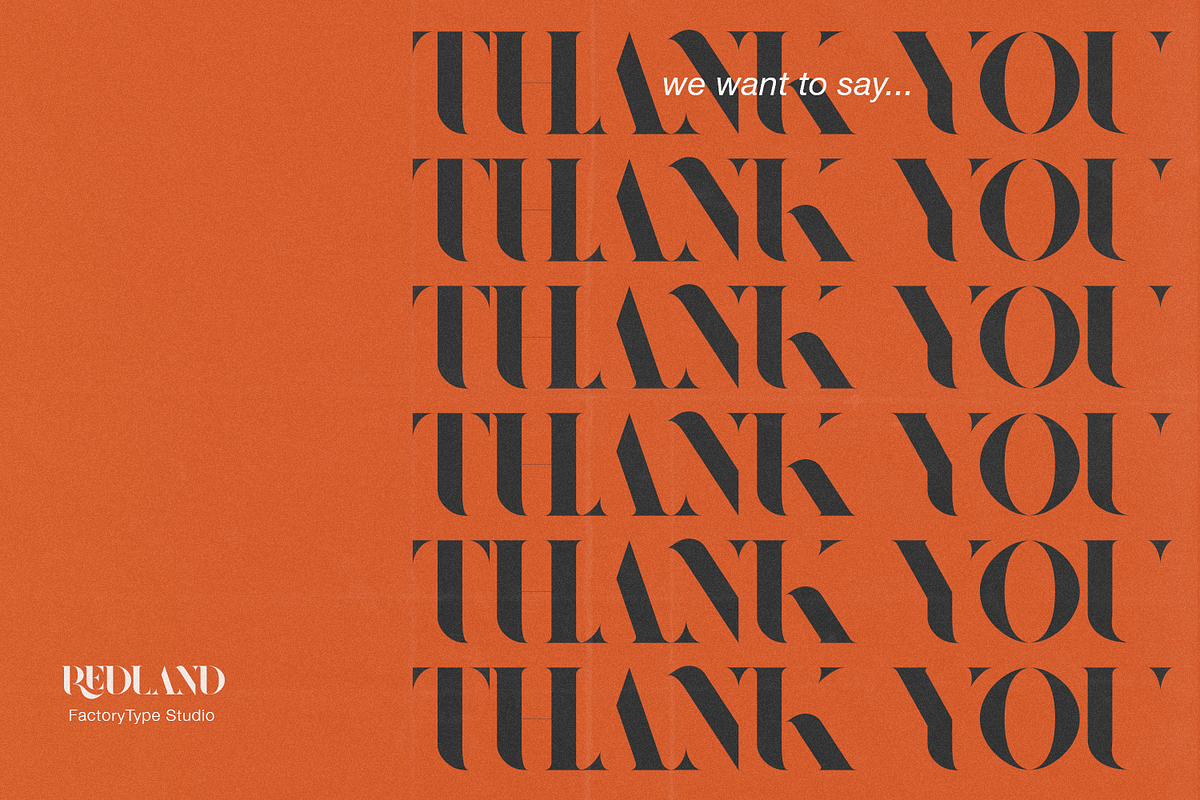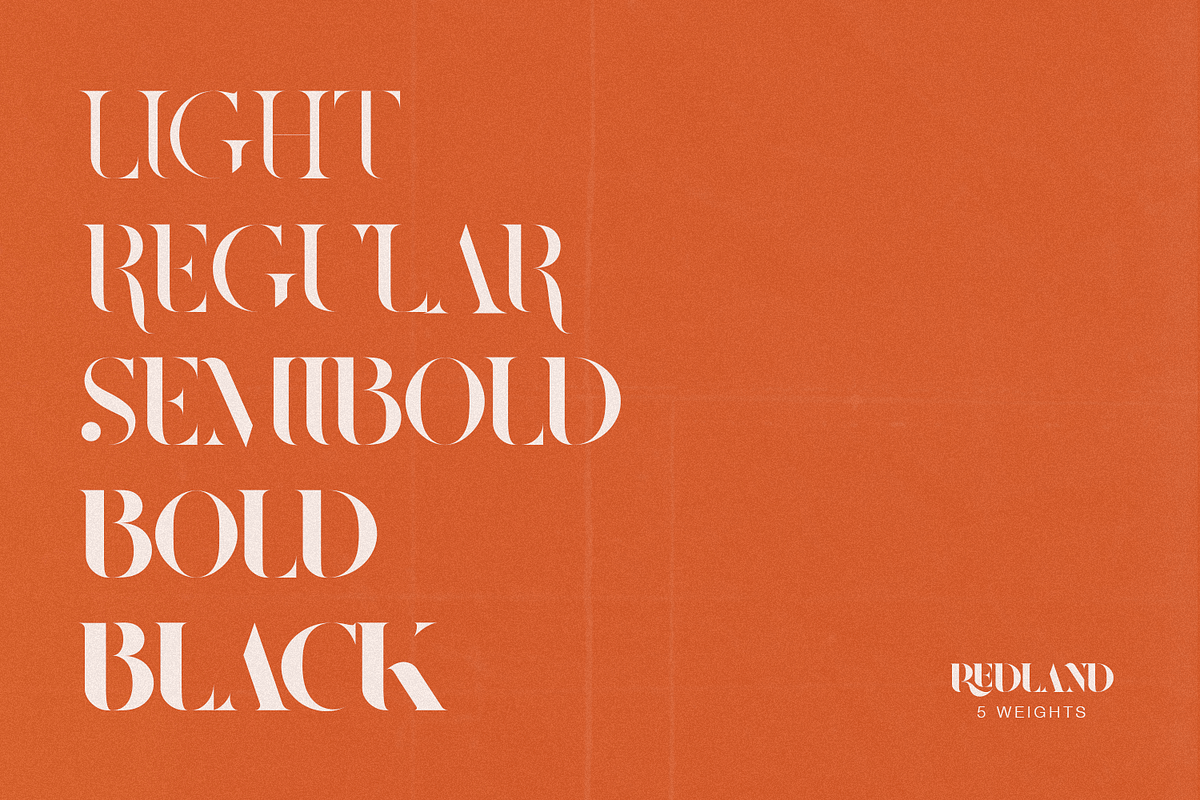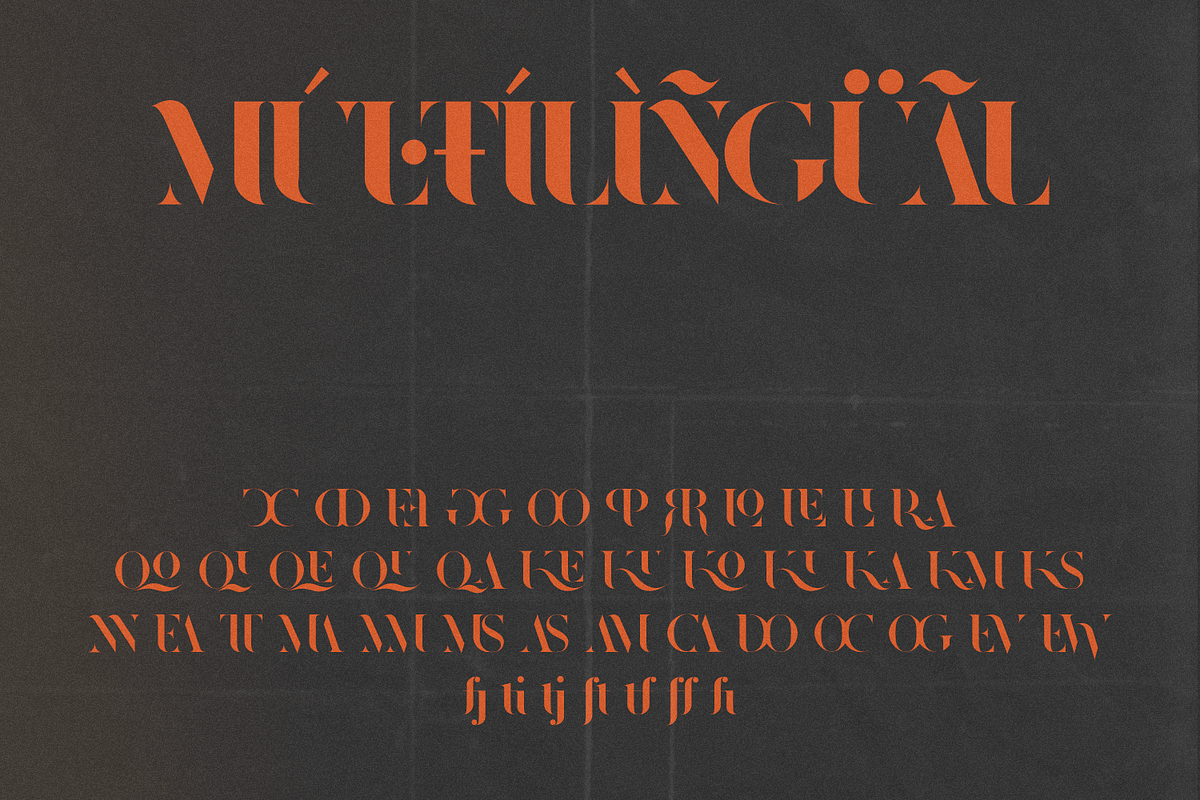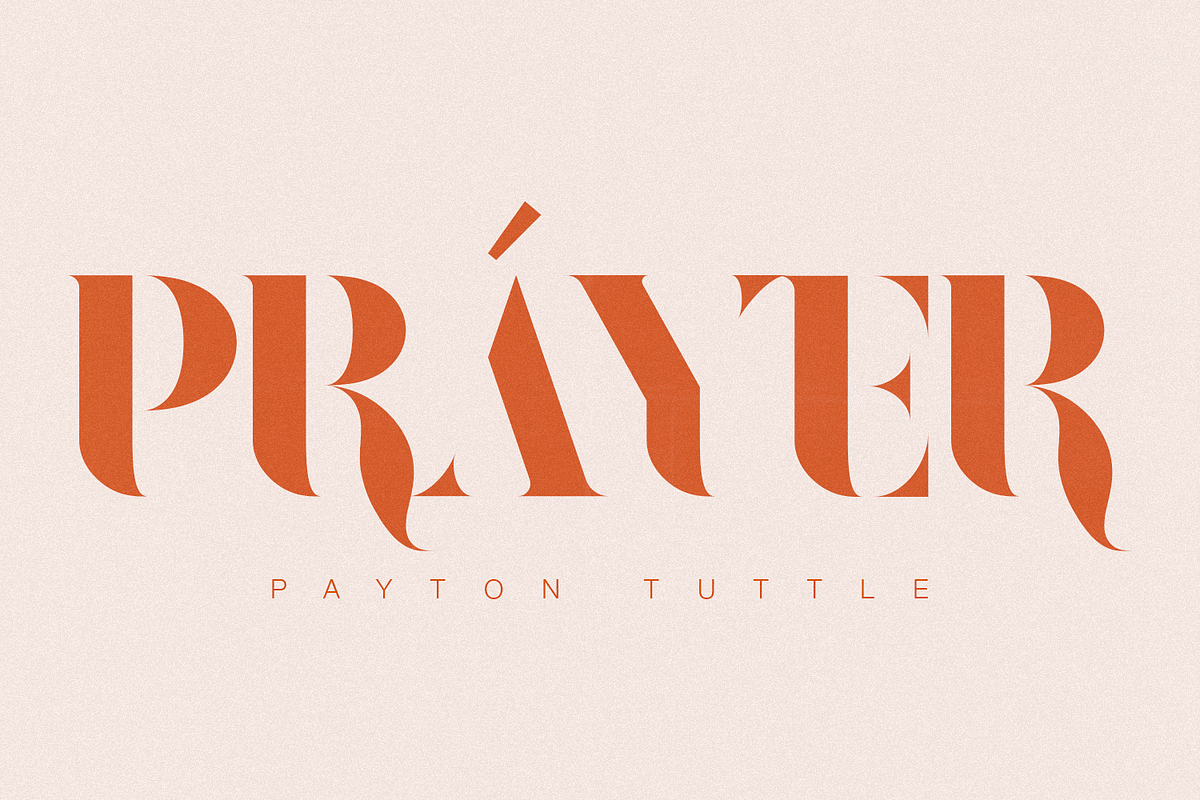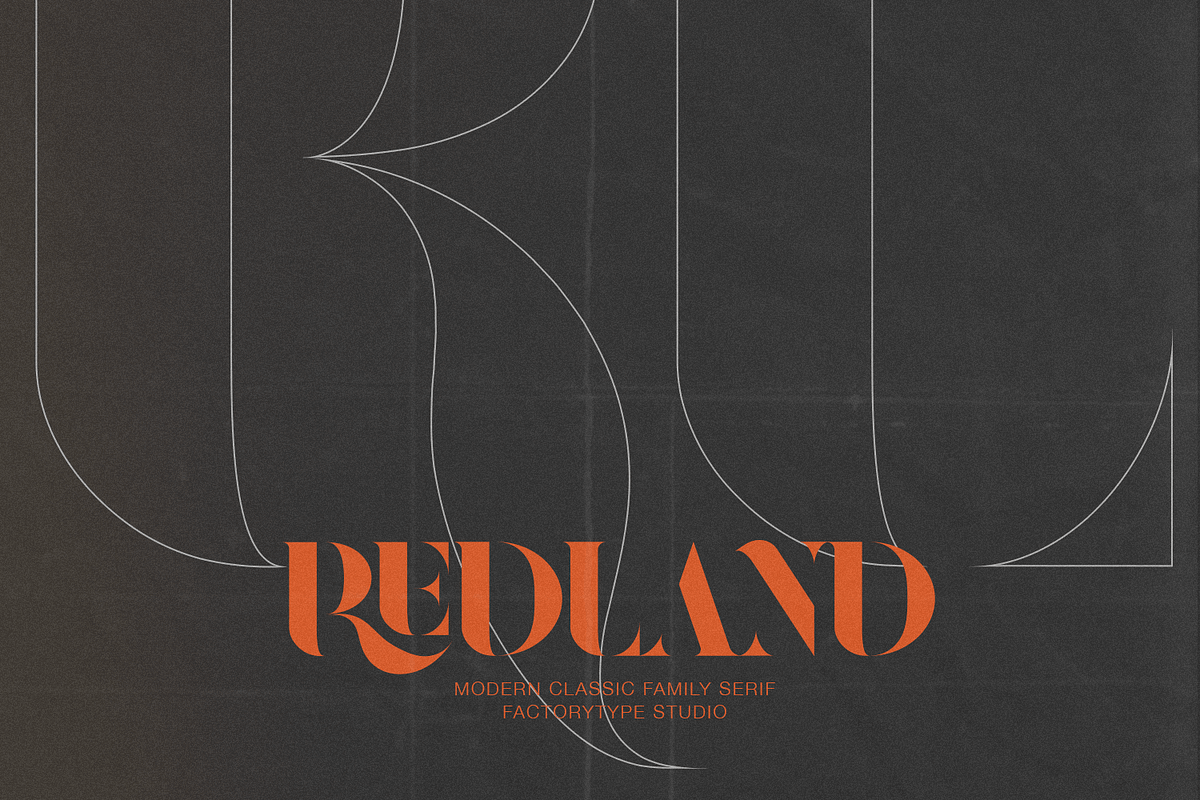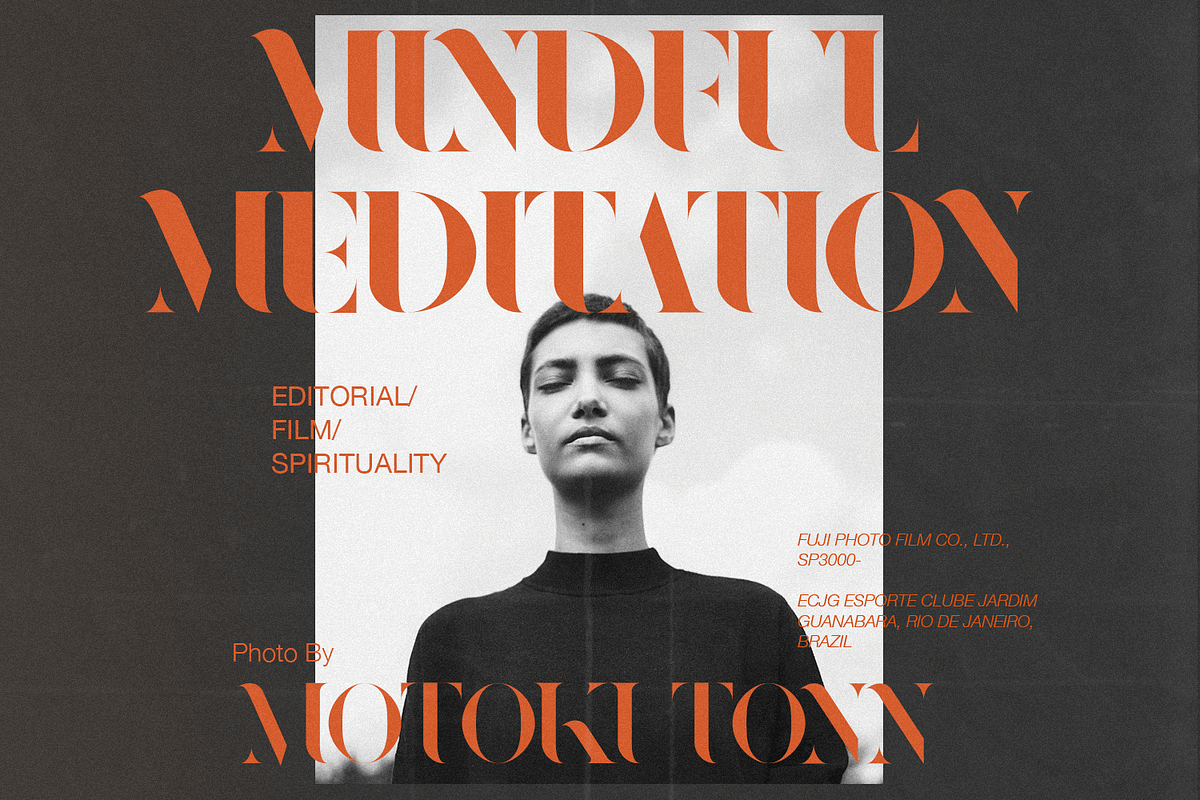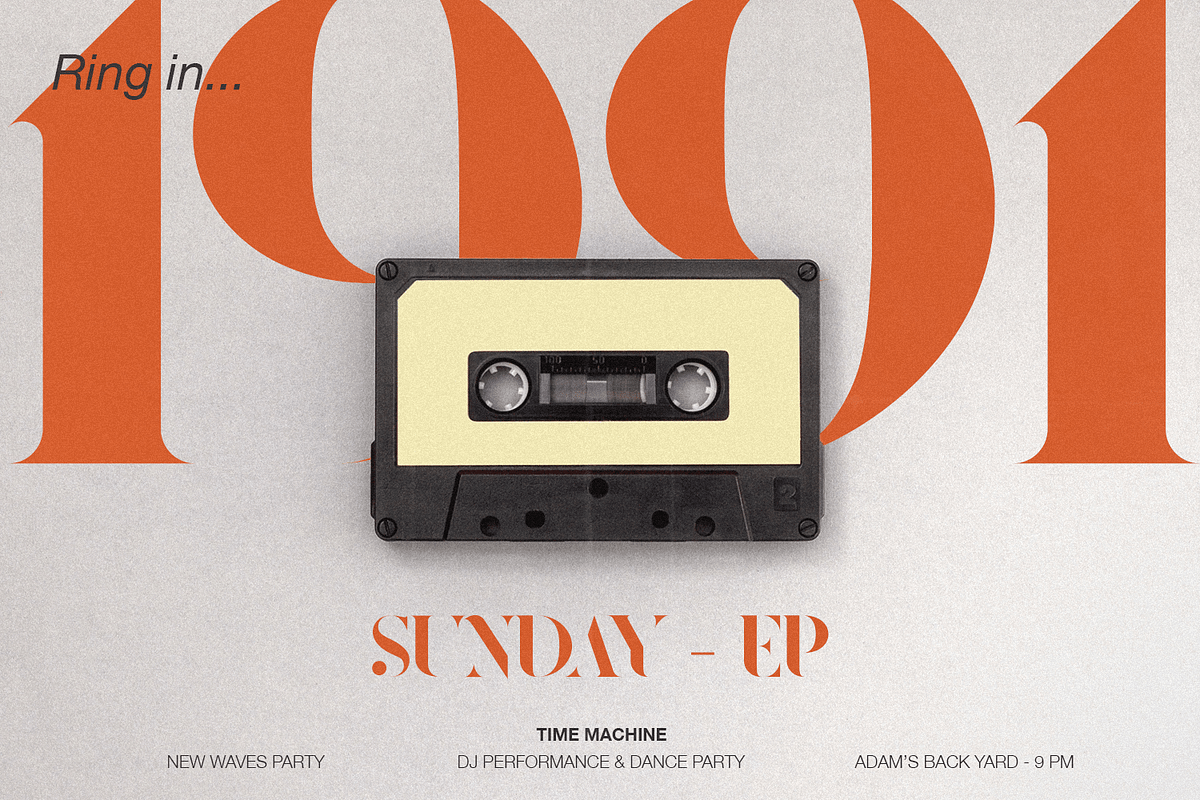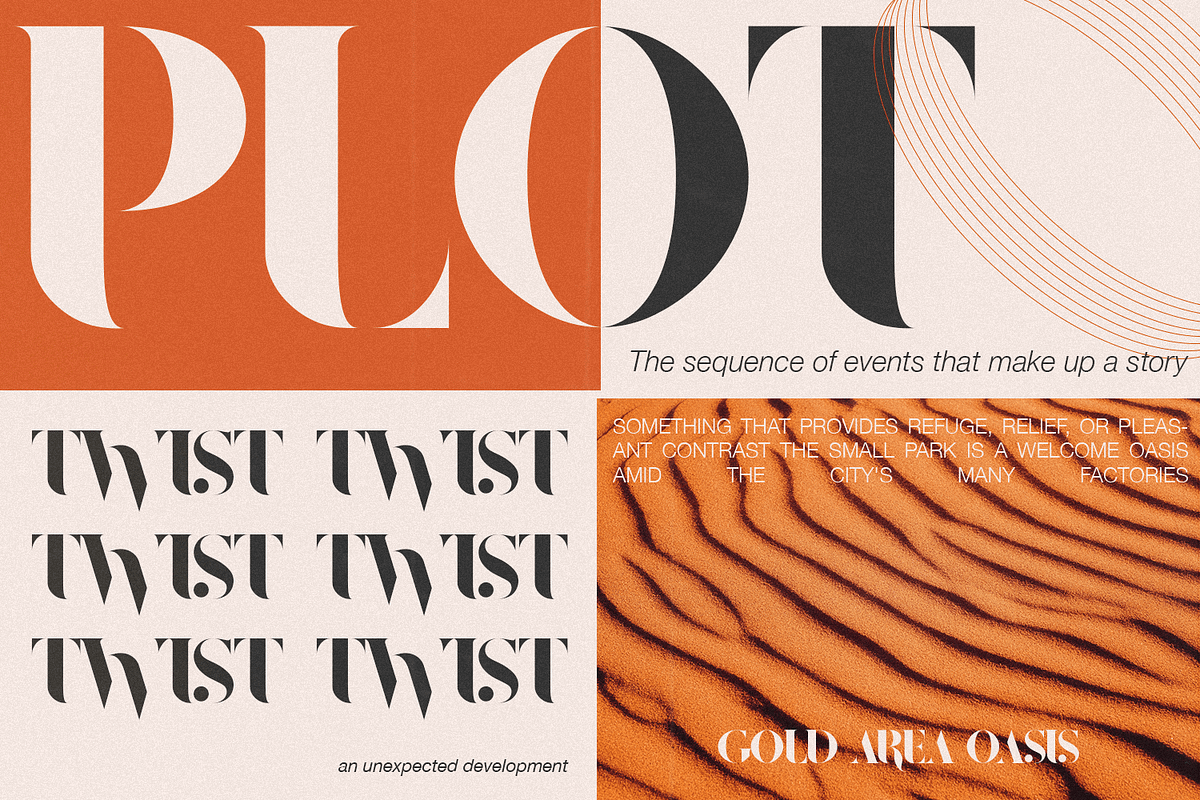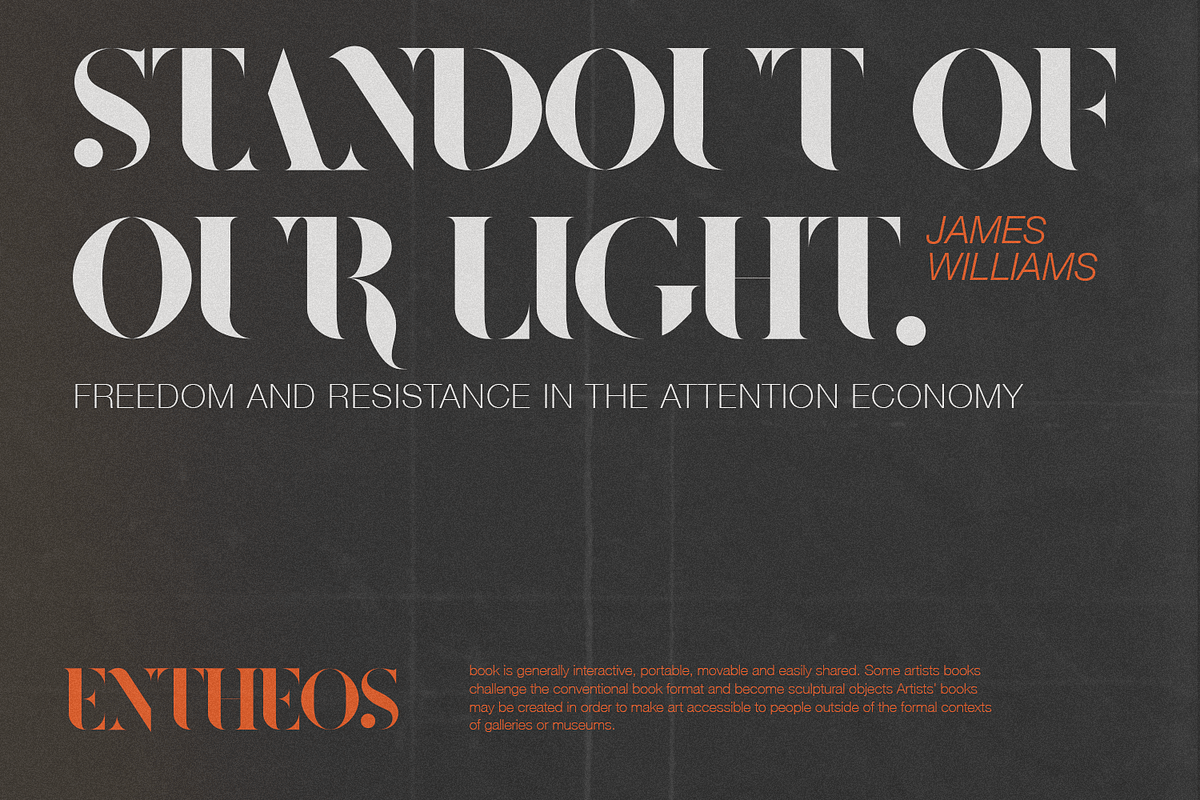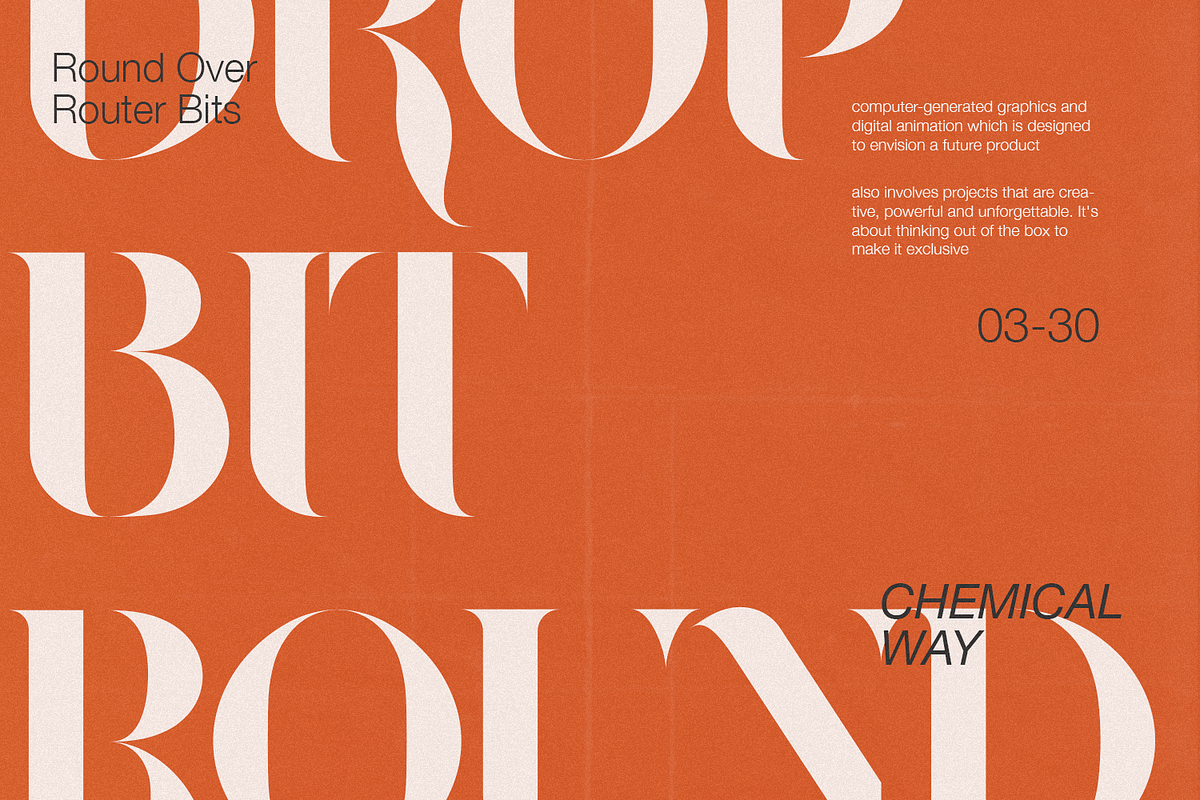
Redland
Redland is a modern classic serif font designed for brand or logo design. It teases your eyes with its curves while still maintaining a classy personality. The various weights offer a variety of options for determining the best typographic color. The available stylistic Ligature and Alternate fonts provide a perfect font for whatever your imagination can think up.
- 5 Weights (Light, Regular, Semibold, Bold, Black)
- Stylistic Alternates & Ligatures
- Multilingual Support for ä ö ü Ä Ö Ü ...